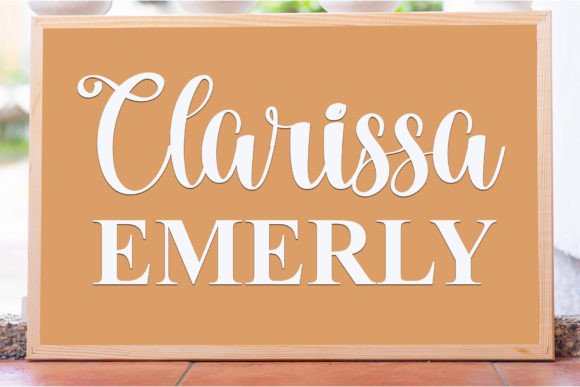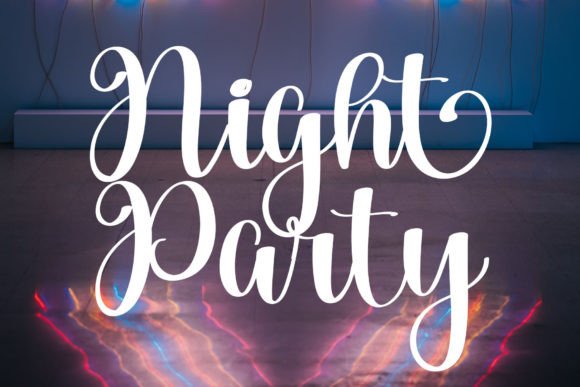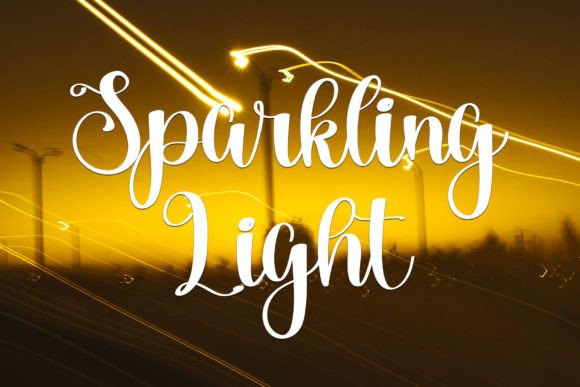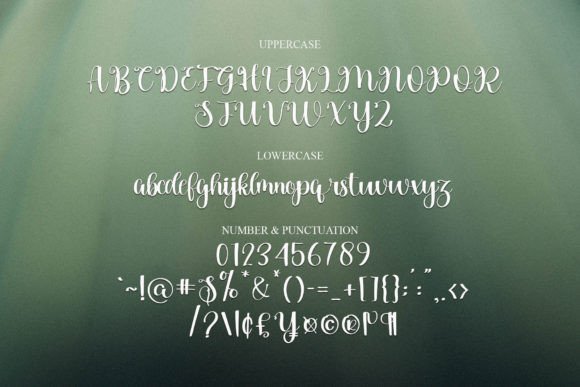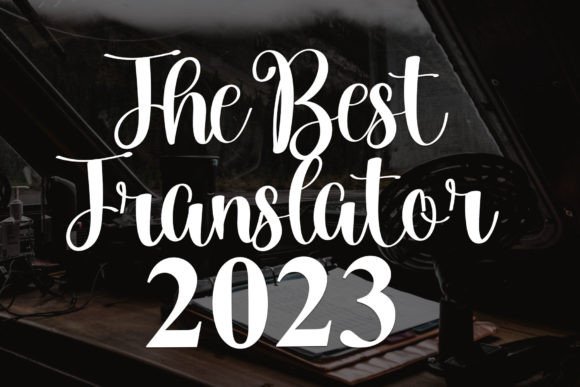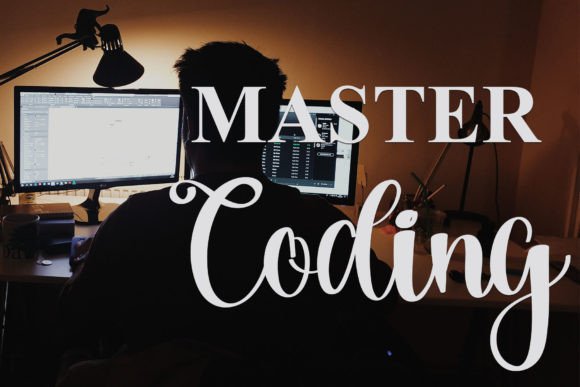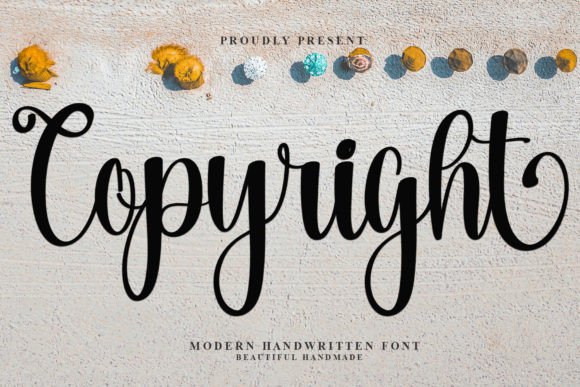
Introducing Copyright Font: The Ultimate Choice for Unique Designs
Are you tired of using the same old fonts in your designs? Do you want to add a touch of personality and whimsy to your projects? Look no further than Copyright Font, a cute handwritten font that’s perfect for designers and crafters who want to stand out from the crowd.
The Personality of Copyright Font
Copyright Font is a fun and quirky font that’s designed to bring a sense of playfulness and individuality to your designs. Its irregular and playful letterforms create a sense of whimsy that’s sure to capture the attention of your audience. Whether you’re working on a branding project, a craft tutorial, or a social media graphic, Copyright Font is the perfect choice for adding a personal touch.
The Benefits of Using Copyright Font
So why choose Copyright Font over other fonts? Here are just a few benefits of using this unique and charming font:
- Uniqueness: Copyright Font is a one-of-a-kind font that’s sure to set your designs apart from the rest. Its irregular letterforms and playful style ensure that your projects will be memorable and eye-catching.
- Personality: Copyright Font has a natural, handwritten style that adds a charming and personal feel to any project. It’s perfect for designers and crafters who want to inject a bit of personality into their work.
- Versatility: Copyright Font is versatile and can be used for a wide range of projects, from branding and advertising to crafting and DIY tutorials.
How to Use Copyright Font in Your Designs
Using Copyright Font in your designs is easy. Here are a few tips to get you started:
- Pair it with other fonts: Copyright Font pairs well with other fonts, especially sans-serif fonts. Try pairing it with a clean and simple font to create a striking contrast.
- Use it for headings: Copyright Font is perfect for headings and titles. Use it to add a touch of personality to your text and make it stand out.
- Experiment with colors: Copyright Font looks great in a variety of colors. Experiment with different colors and combinations to find the one that works best for your design.
Who Can Benefit from Using Copyright Font?
Copyright Font is perfect for a wide range of designers and crafters, including:
- Graphic designers: Copyright Font is a great choice for graphic designers who want to add a touch of personality to their designs.
- Crafters: Copyright Font is perfect for crafters who want to add a personal touch to their tutorials and projects.
- Small business owners: Copyright Font is a great choice for small business owners who want to create a unique and memorable brand identity.
In conclusion, Copyright Font is a unique and charming font that’s perfect for designers and crafters who want to add a touch of personality to their designs. Its irregular and playful letterforms create a sense of whimsy and individuality, making it perfect for projects that require a bit of uniqueness. With its versatility, personality, and uniqueness, Copyright Font is sure to become a favorite in your font collection.